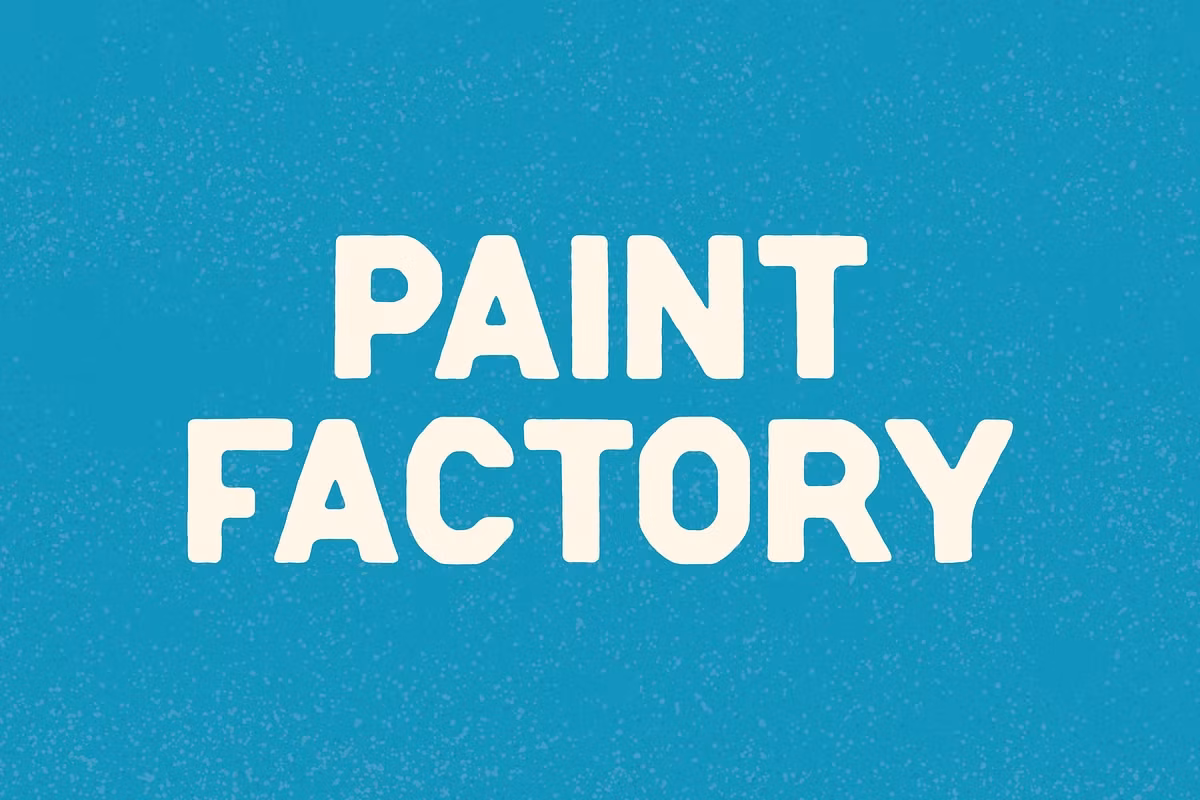
Paint Factory — Vintage letter font Free Download
Paint Factory — Vintage Letter Font Free Download
Paint Factory — Vintage Letter Font Free Download is a bold and expressive typeface inspired by classic vintage signage and hand-painted lettering. With its rough, weathered edges and unique character, this font is perfect for creating retro-inspired logos, posters, branding, and more. Whether you're working on creative projects that require a touch of nostalgia or modern designs with a vintage twist, Paint Factory adds personality and authenticity to your work.